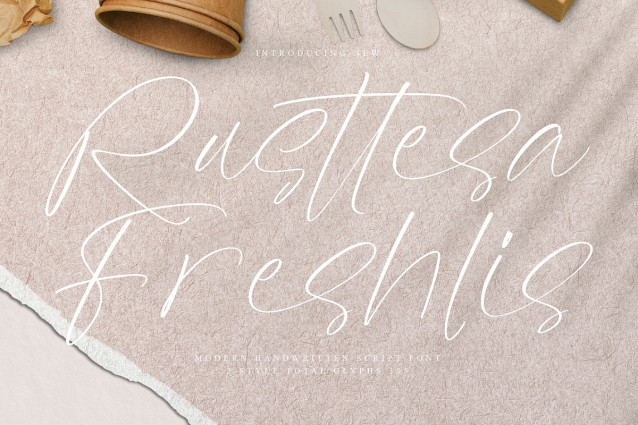
Rusttesa Freshlis Font
Rusttesa Freshlis Font  – Modern Handwritten Script Font, from Operatype, perfect for any project like: logos, branding projects, homewares designs, product packaging, mugs, quotes, posters, shopping bags, t-shirts, covers books, business cards, invitation cards, greeting cards, labels, photography, watermarks, special events and all your other luxury projects that require a premium taste.